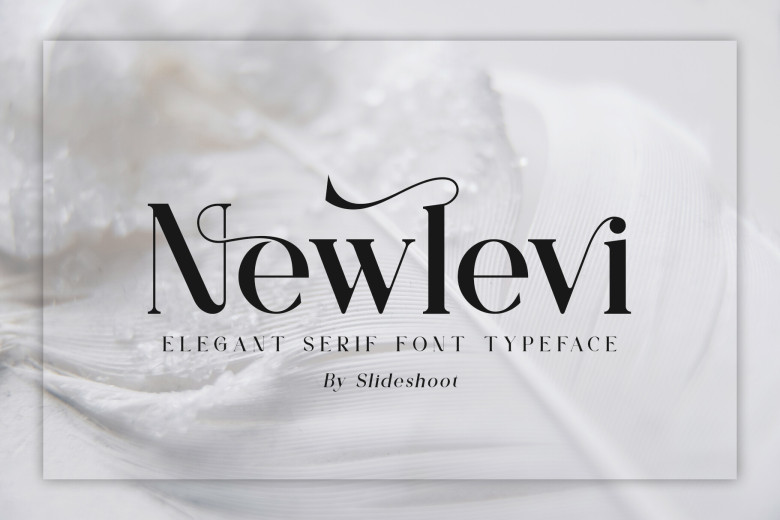
Newlevi Font
Newlevi Serif is harmonious, pleasant, graceful, and stylish serif font. In his strong character there are beautiful tints. It resembles nicely with invitation card designs, company logos, movie titles, movie names, business cards, book titles, brand name and other lots of designs. Newlevi Serif is a very delicate sans serif font that really looks like the embodiment of nobility.
Newlevi Serif Font